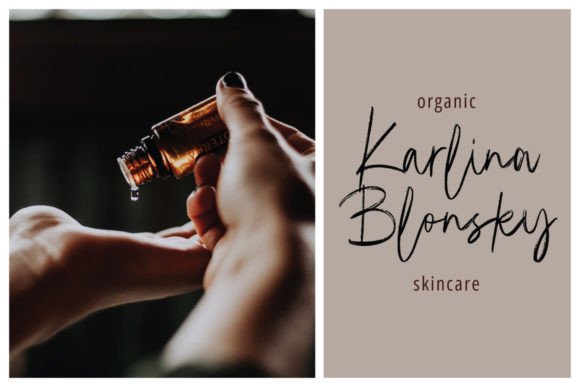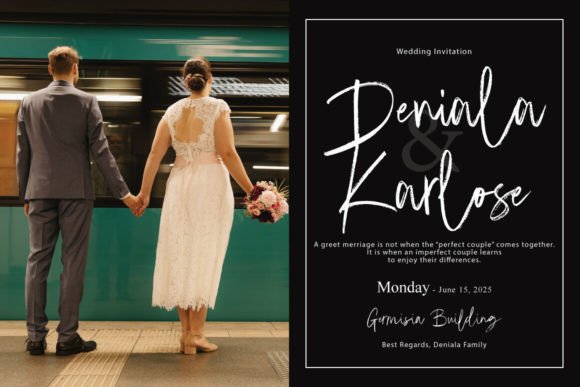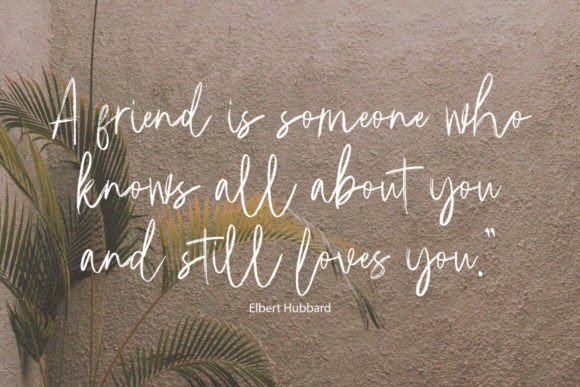
Introduction to Emoray Font
Emoray Signature Brush with a handmade Signature style, decorative characters and a dancing baseline.
So beautiful on invitation like greeting cards, branding materials, business cards, quotes, posters, and more Emoray Signature Brush with 130+ glyphs.
Key Features of Emoray Font
Why Choose Emoray Font?
Emoray Font offers exceptional quality and versatility, making it a valuable addition to your design toolkit. Whether you’re creating for personal projects or commercial use, Emoray Font delivers professional results.